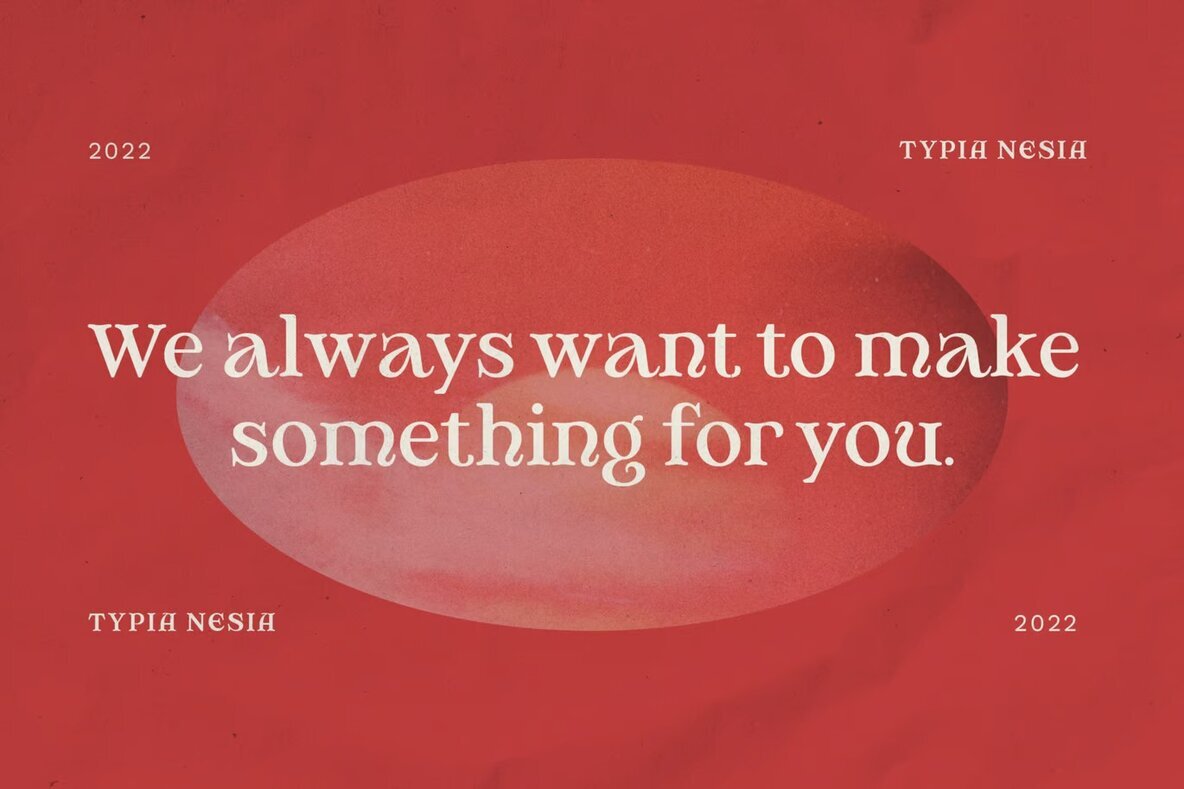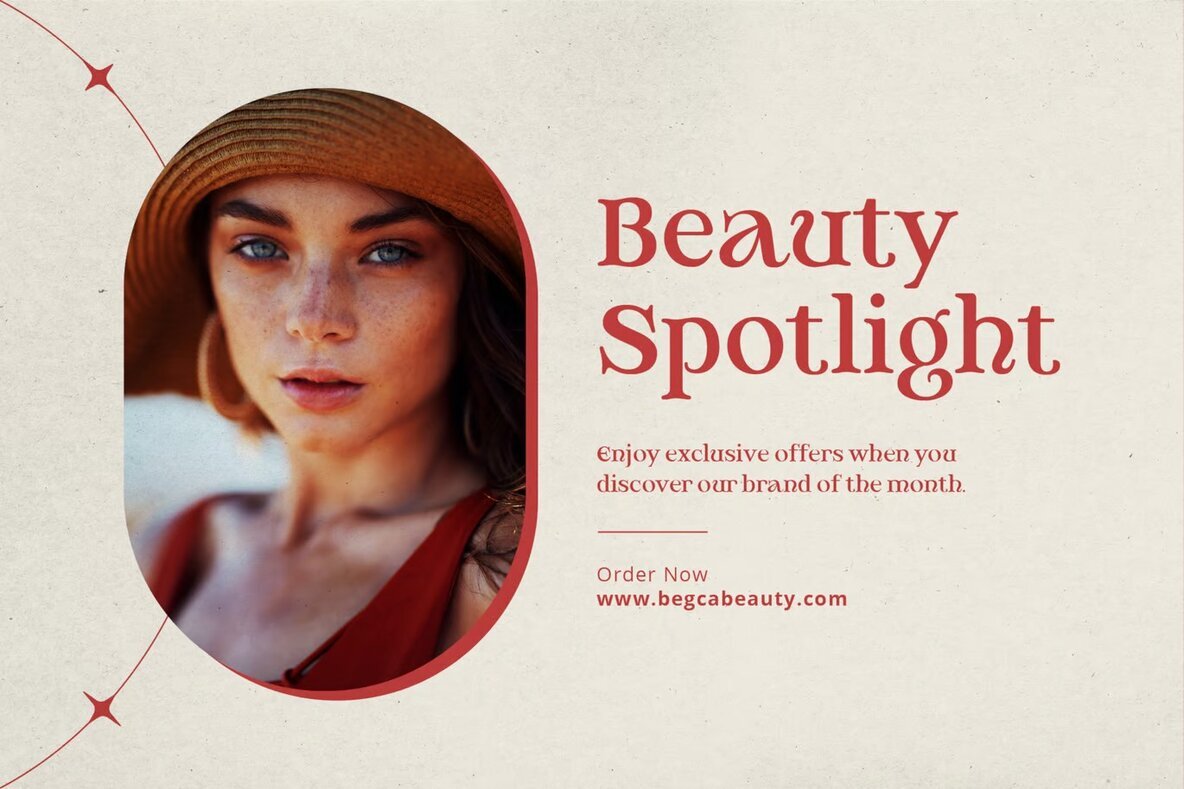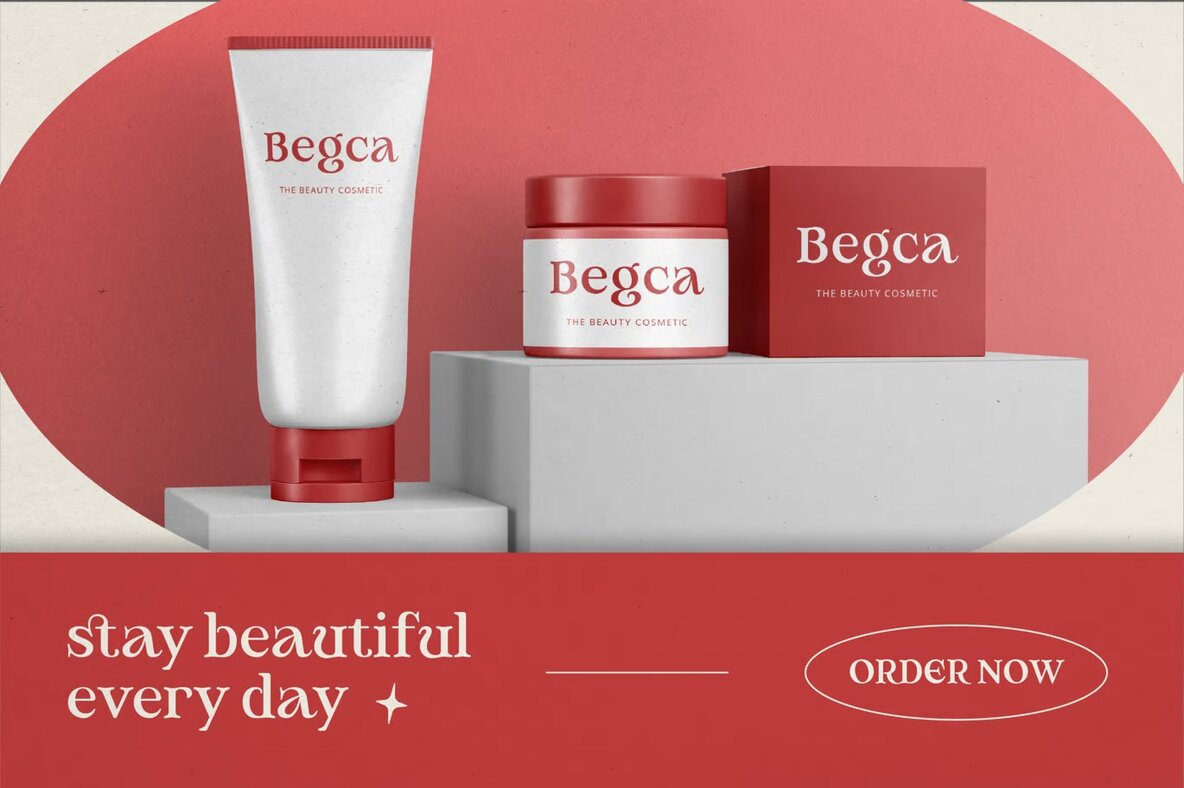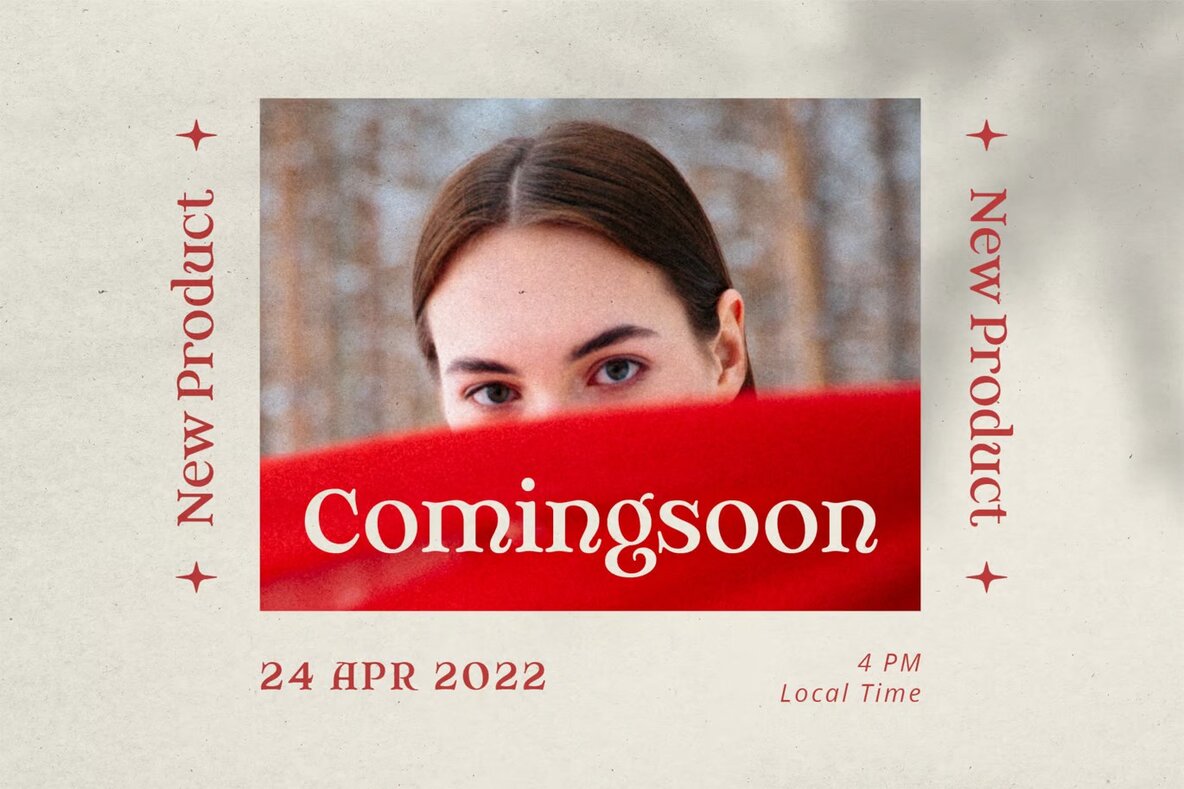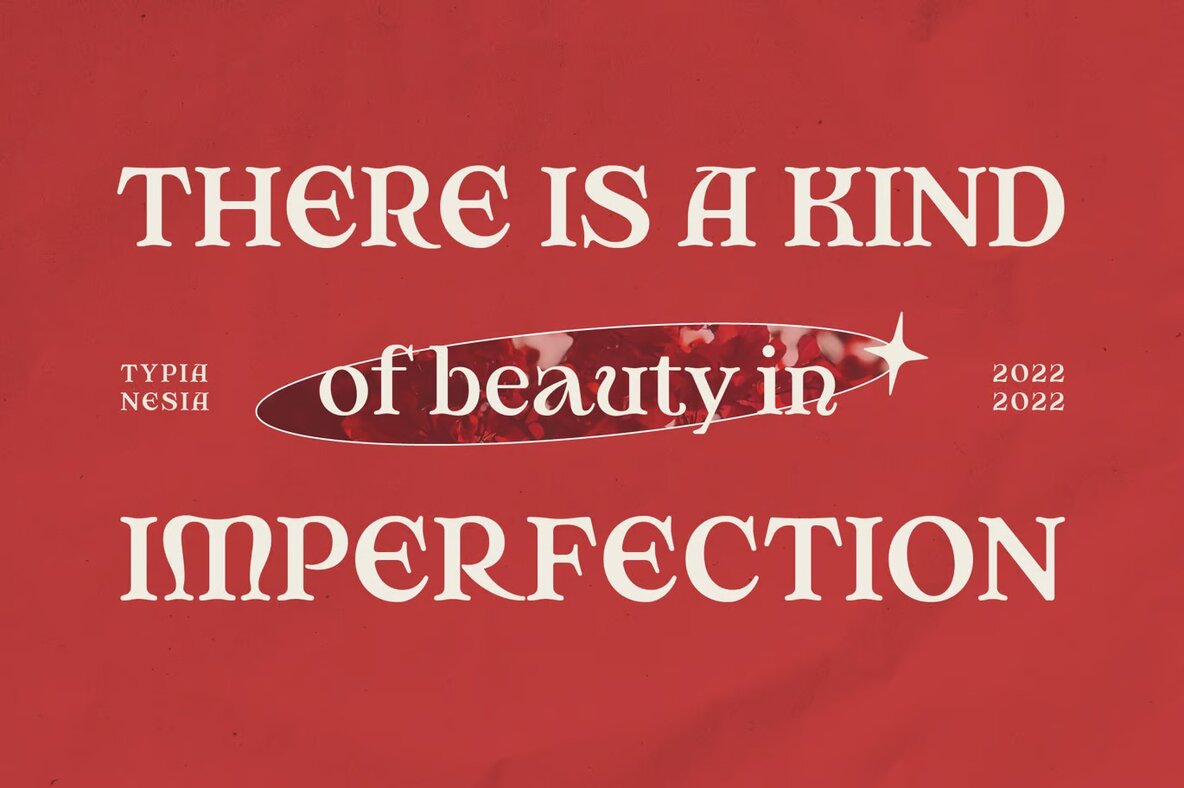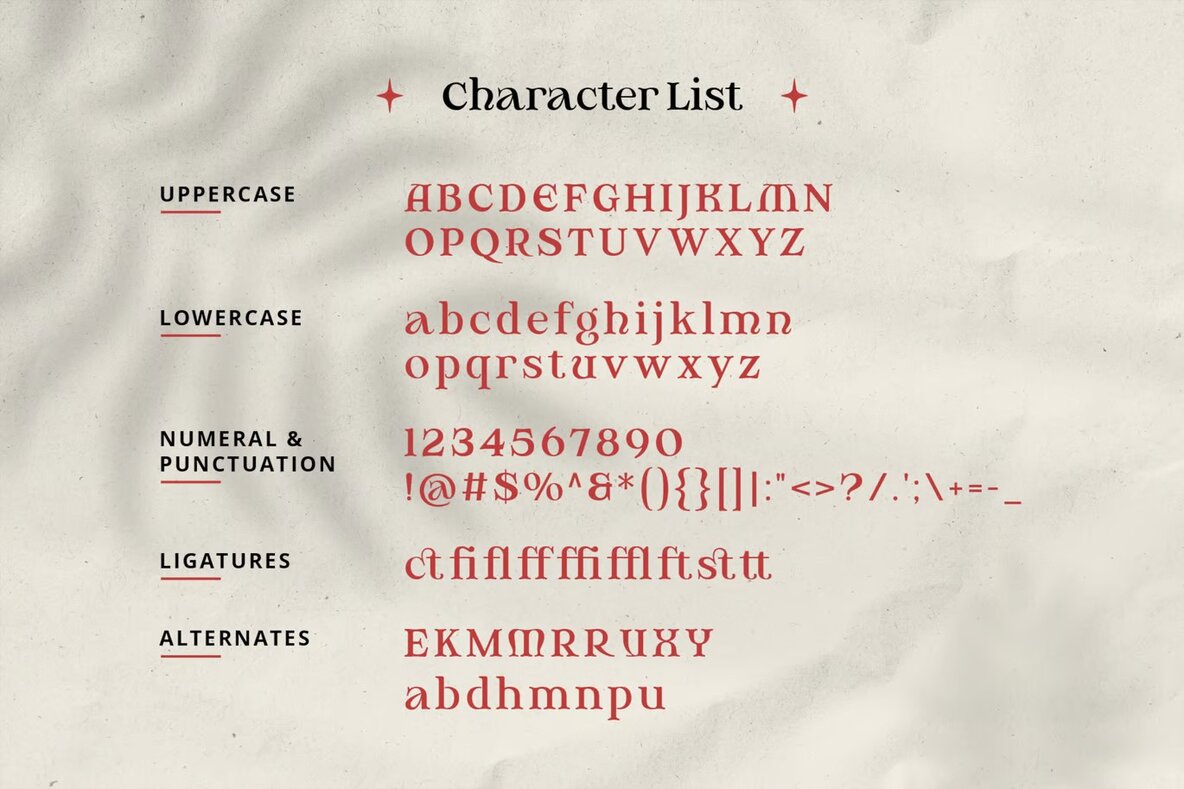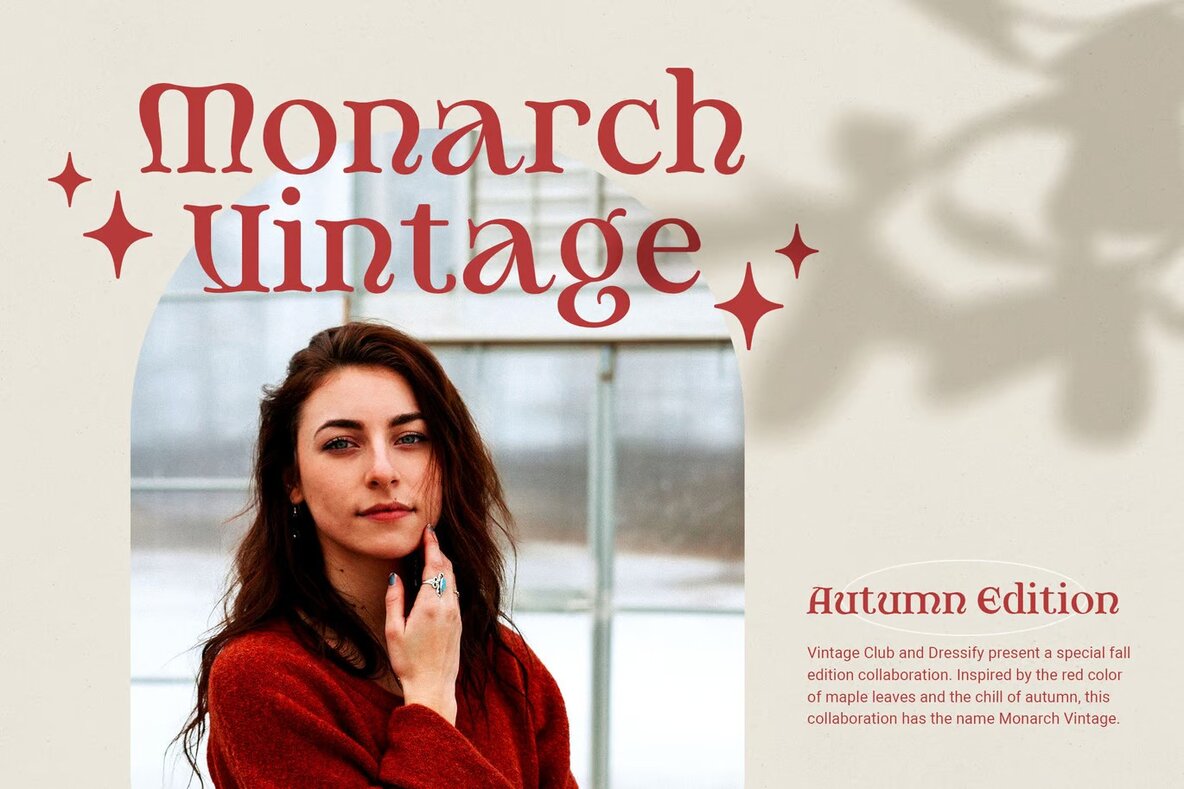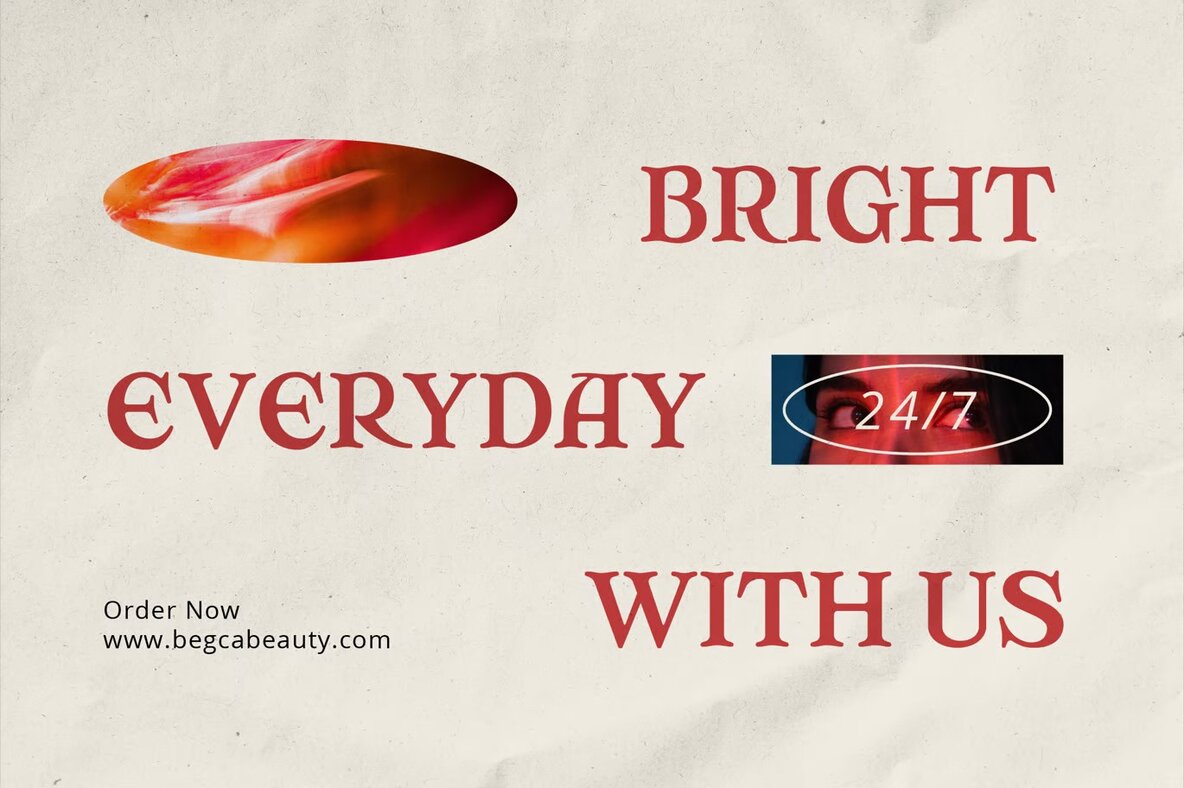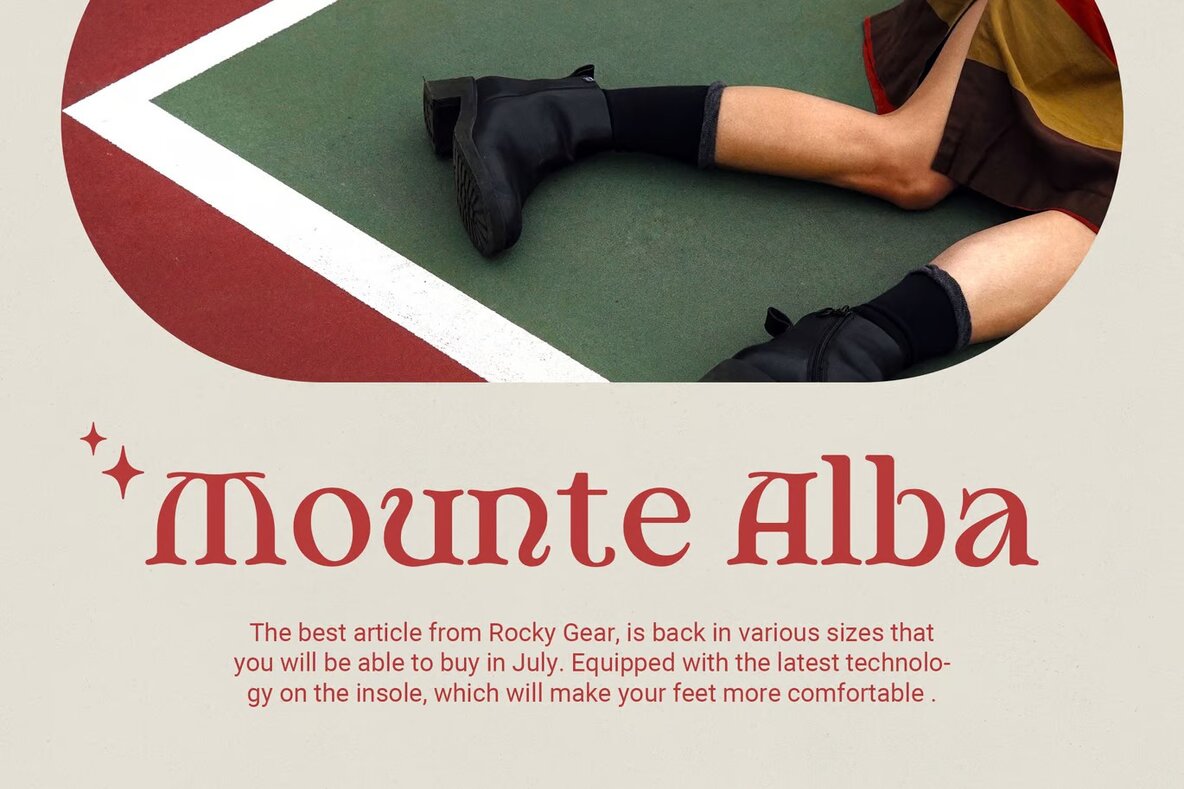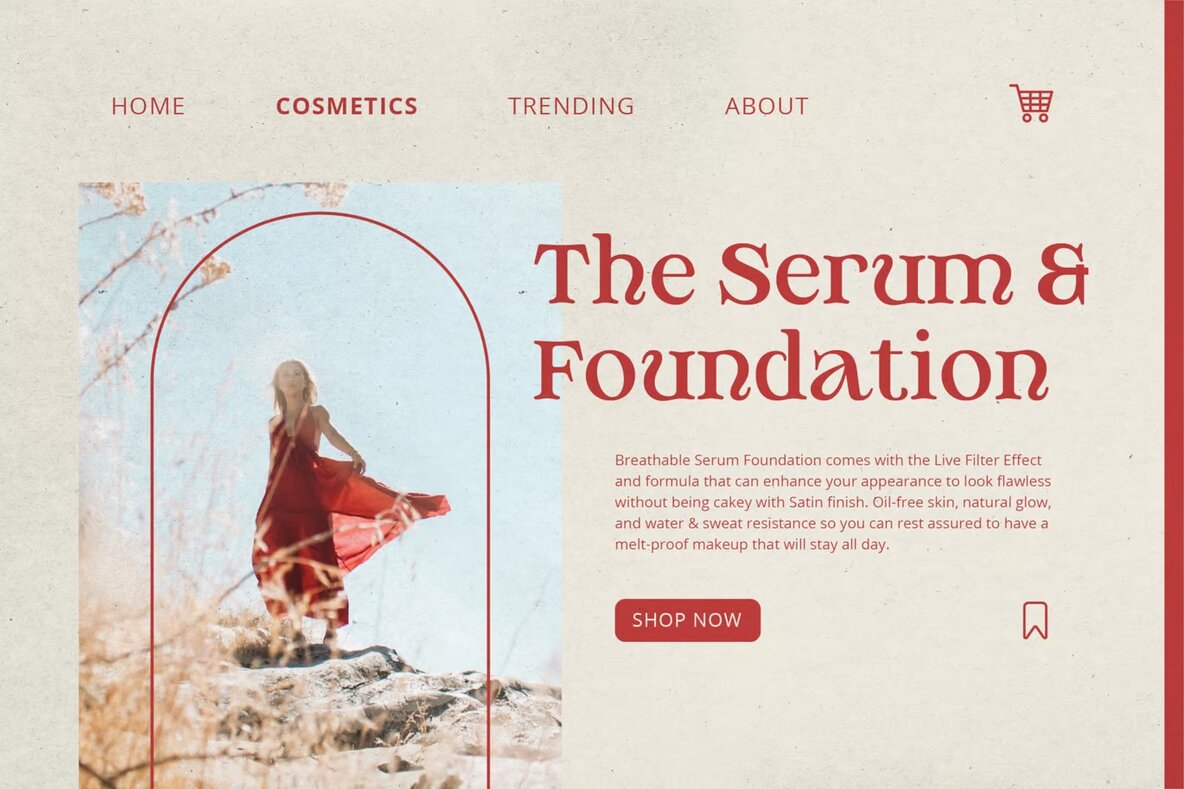
Romancial Font
Romancial Regular
This ornate serif font is perfect for creating elegant and vintage designs. Its bold, decorative style makes it ideal for headlines, posters, and book covers. With its classic and stylish appearance, this font can also add a touch of luxury and uniqueness to branding projects and advertisements.